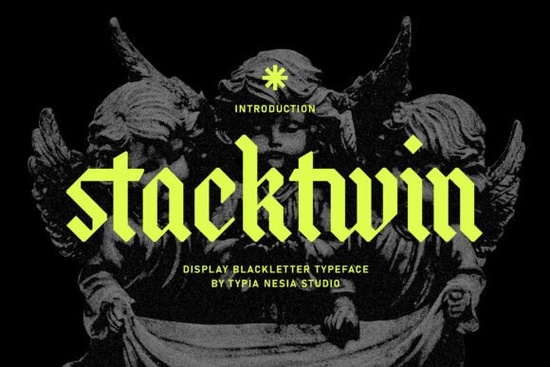
If you're looking for a bold, modern blackletter font that works well for logos, apparel, or event posters without feeling dated or hard to read, Stackwin Font is worth your attention. It’s not a traditional gothic script instead, it balances strong, angular letterforms with clean spacing and thoughtful proportions. That means it holds up at small sizes (like on a T-shirt tag or product label) and still makes an impact large-scale, like on a concert poster or storefront sign.
What kind of projects is Stackwin best suited for?
Because it’s designed as a display typeface not meant for long paragraphs Stackwin shines where visual impact matters most. Think: band merch, tattoo flash sheets, boutique packaging, wedding invitations with gothic flair, or even craft fair booth signage. Its confident weight and subtle decorative touches give designs a grounded, intentional feel not flashy, but memorable. If you’ve tried other blackletter fonts and found them too dense or difficult to pair with sans-serif body text, Stackwin’s improved legibility helps bridge that gap.
It also handles digital use well: web banners, social media graphics, and email headers all benefit from its clarity and presence. Unlike some blackletter fonts that blur or pixelate at lower resolutions, Stackwin was built with modern screen rendering in mind.
How does Stackwin compare to other blackletter fonts on Creative Fabrica?
Every blackletter font has its own personality and knowing the differences helps you choose wisely. For example, Highborne leans more ornate and medieval, with elaborate flourishes ideal for fantasy branding or book covers. Underdove offers a slightly softer, rounded take on gothic structure great if you want mystery without severity. Meanwhile, Rumbleside brings in rugged texture and irregular stroke contrast, perfect for streetwear or grunge-inspired layouts.
Stackwin sits between those extremes: bolder than Underdove, cleaner than Highborne, and less distressed than Rumbleside. It’s the go-to when you need authority and elegance without extra noise.
Is Stackwin easy to use for non-designers?
That said, blackletter fonts do require thoughtful pairing. Try stacking Stackwin headlines over a simple, neutral sans-serif like Montserrat or Inter for body copy. Avoid pairing it with other decorative fonts especially other blackletters unless you’re intentionally going for layered contrast (and even then, test readability first).
Where can I see real examples of Stackwin in action?
While Creative Fabrica showcases sample mockups, you’ll get a clearer sense of how Stackwin Font performs by testing it in your own workflow. Try dropping it into a quick poster layout or resizing it across three different outputs: a 12” x 18” print, a 1080x1080 Instagram graphic, and a 2” x 3” sticker mockup. Notice how the thick strokes hold shape, how counters stay open, and whether letters like “e”, “a”, and “g” remain distinct at smaller sizes.
You might also browse recent projects tagged #Stackwin on Creative Fabrica’s community feed real users often share how they adapted it for vinyl decals, embroidery digitizing, or minimalist stationery.
Before downloading Stackwin, ask yourself:
- Do I need a bold headline font not for body text?
- Will this be used in both digital and print contexts?
- Am I okay with a gothic aesthetic that’s modern, not historical?
- Have I checked how it pairs with my current brand fonts?
If most answers are yes, Stackwin Font is likely a practical, versatile addition to your collection not just another decorative option, but one that solves specific design problems with consistency and care.